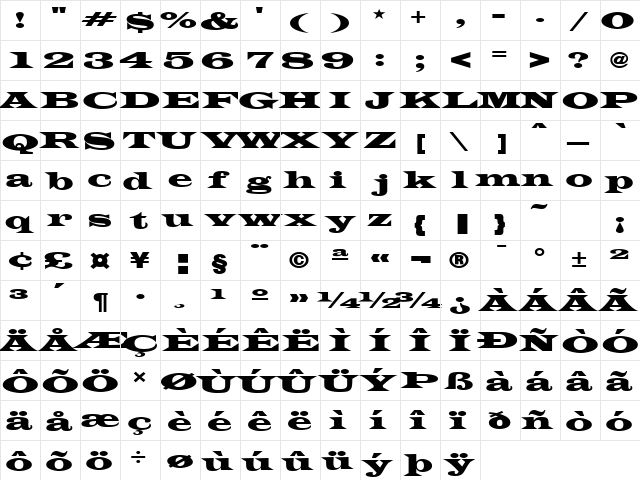
TransverseExpandedSSK Regular
Design Context for TransverseExpandedSSK Typeface
TransverseExpandedSSK offers clean, dependable letterforms without strong stylistic allegiance, making it a practical choice for designers who need flexibility.
Pro Tip: Use TransverseExpandedSSK in both headline and body roles to test its range before committing to a single application.